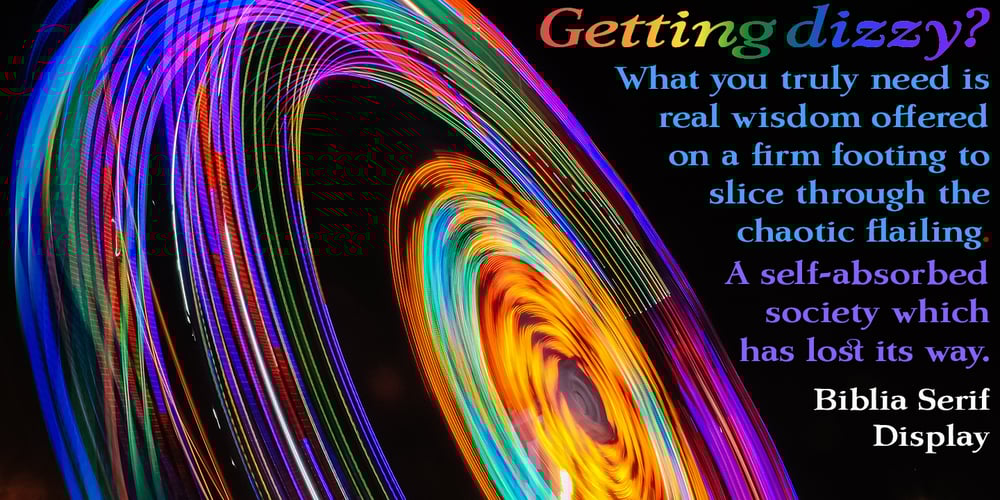
Biblia Serif Display Font Family was designed by David Bergsland and published by Hackberry Font Foundry. Biblia Serif Display contains 2 styles and family package options. What I needed in my projects was a solid oldstyle serif typeface with impact for heads. I had an old engraving font, which I’d never really finished. It happened to be built on the Minister/Diaconia base drawings I used to create Biblia Serif, so I took a shot at it. It’s wide enough to minimize the large solid ink shapes of many of the bolder display headline faces. It’s not readable, but it’s very legible. This is exactly what I needed for headlines, callouts, and special subheads. It uses the same vertical metrics of the Biblia Serif book Production Group It helps keep fiction designs comfortable